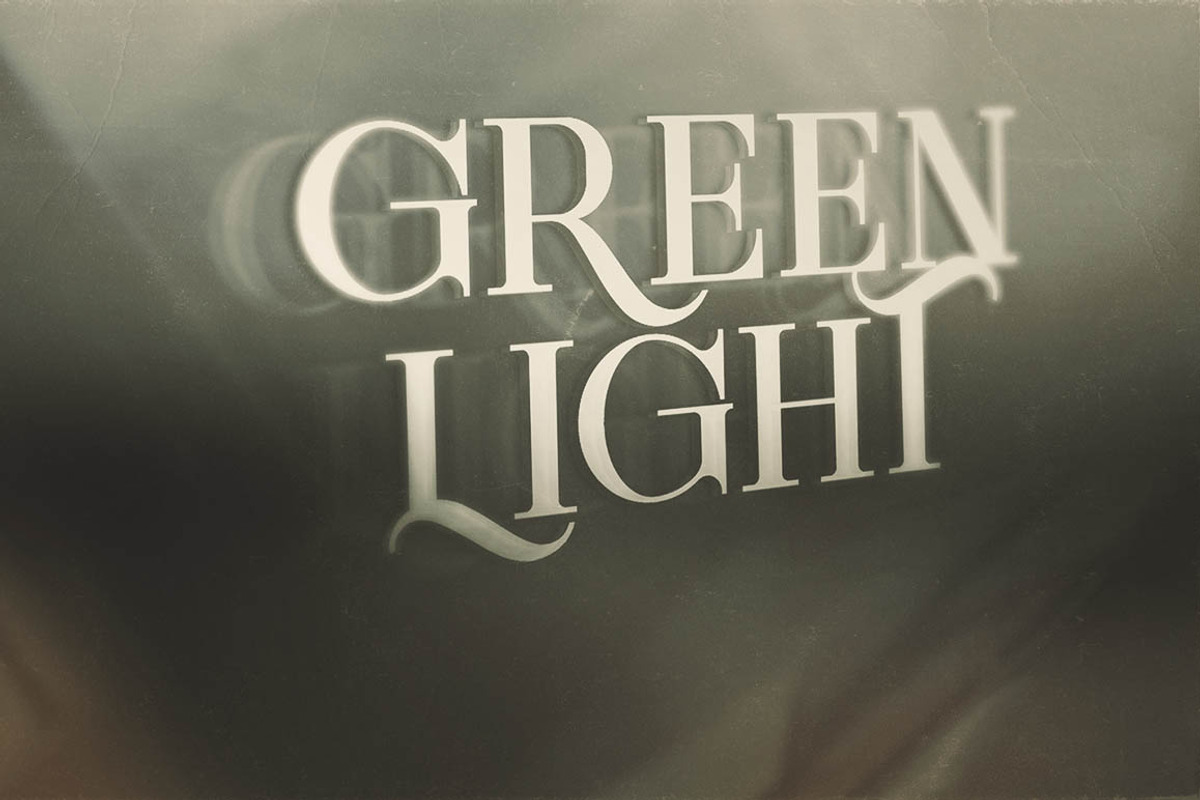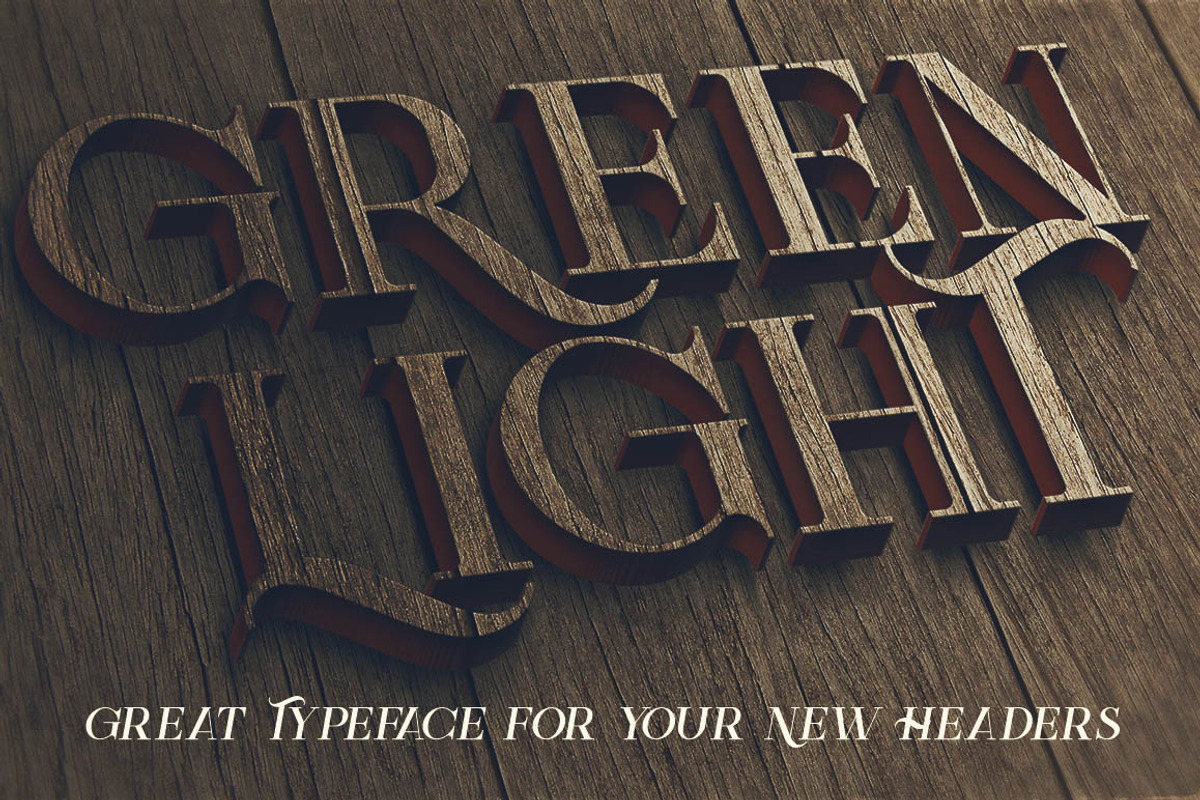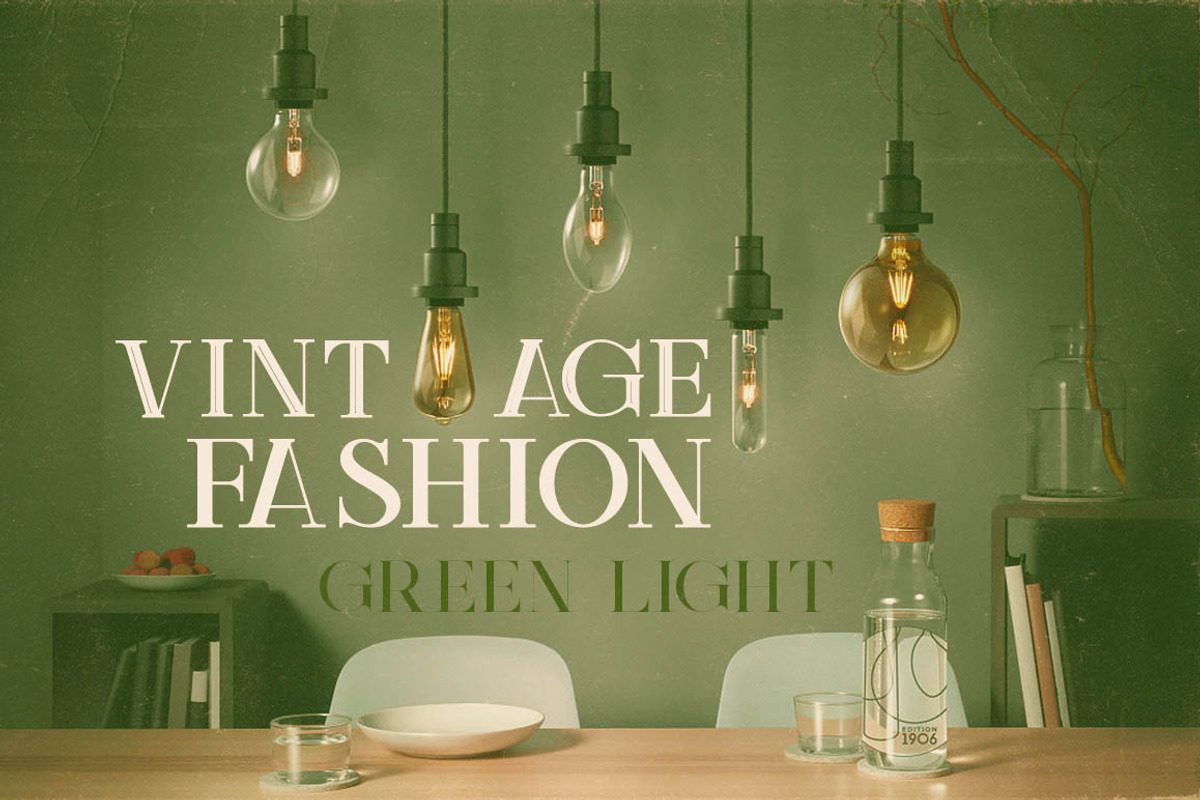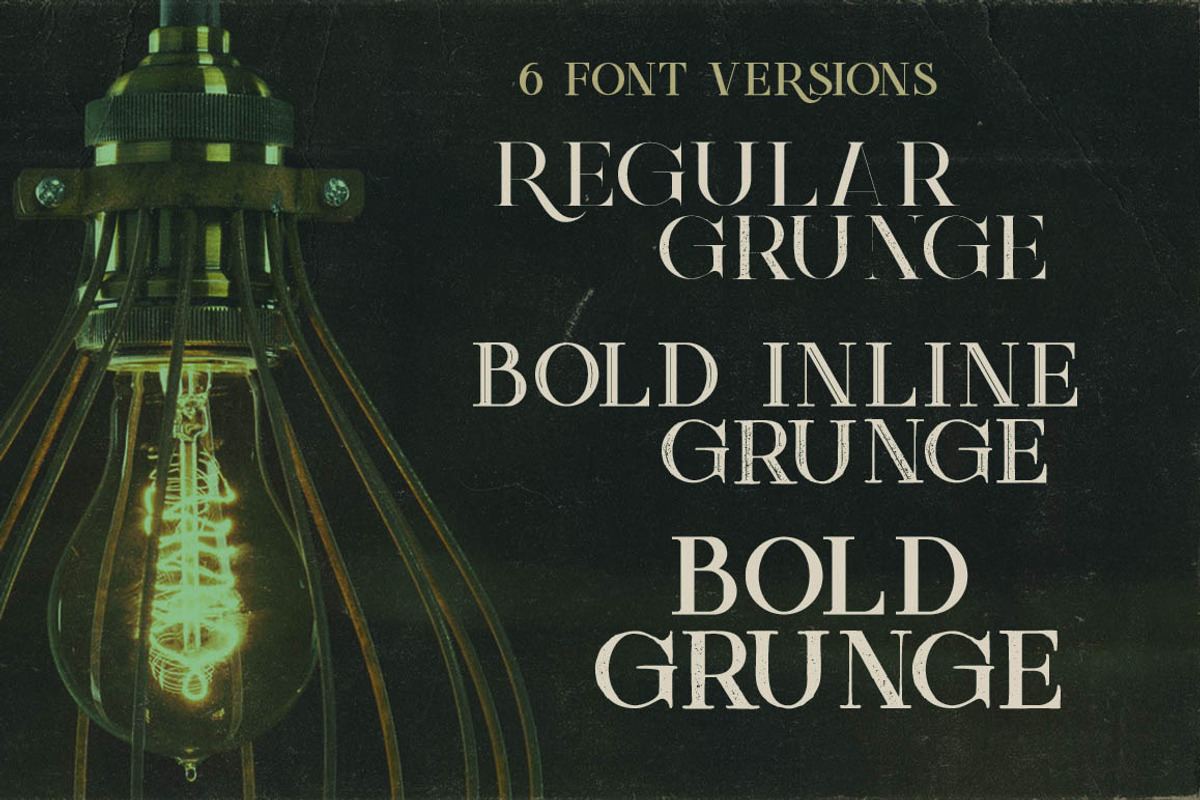
Green Light - Vintage Style Font
Green Light - Vintage Style Font by JumboDesign is a font selected for branding, posters, packaging, typography.
Why Green Light - Vintage Style Font is worth a look
Green Light - Vintage Style Font by JumboDesign fits naturally into Branding, posters, packaging, typography.